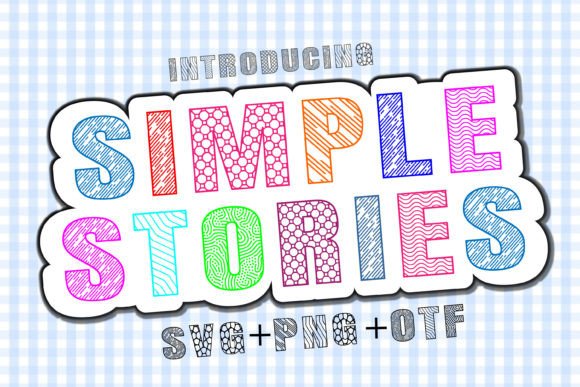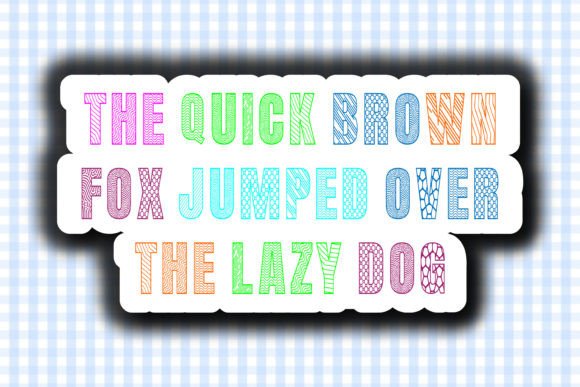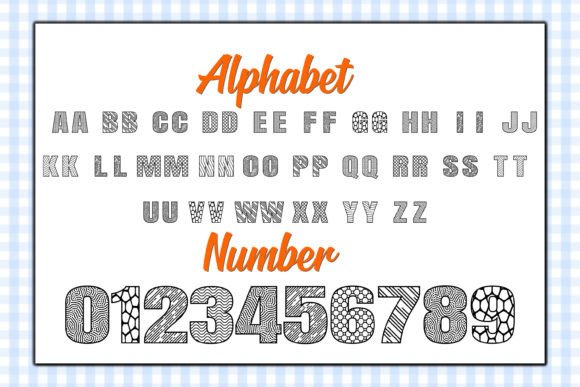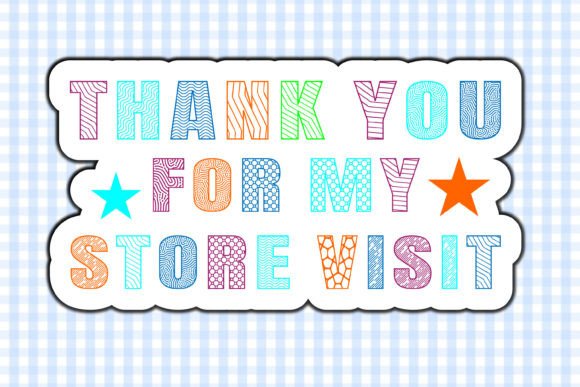
Simple Stories Font: A Cute Display Font for Modern Branding
About the Simple Stories Font
Experience the unique personality of Simple Stories Font, a font designed for impact. Introducing a vibrant splash to your creative projects, our color font embodies joy and whimsy that is bound to elevate your design endeavors. An absolute fit for branding initiatives, packaging designs, riveting logotypes, and gripping headlines, it also adds a sprinkle of charm to wedding invitations and similar creatives. Embrace and experience the transformative power of this uplifting font in your designs.
Simple Stories Font Usage Examples
Simple Stories Font Example